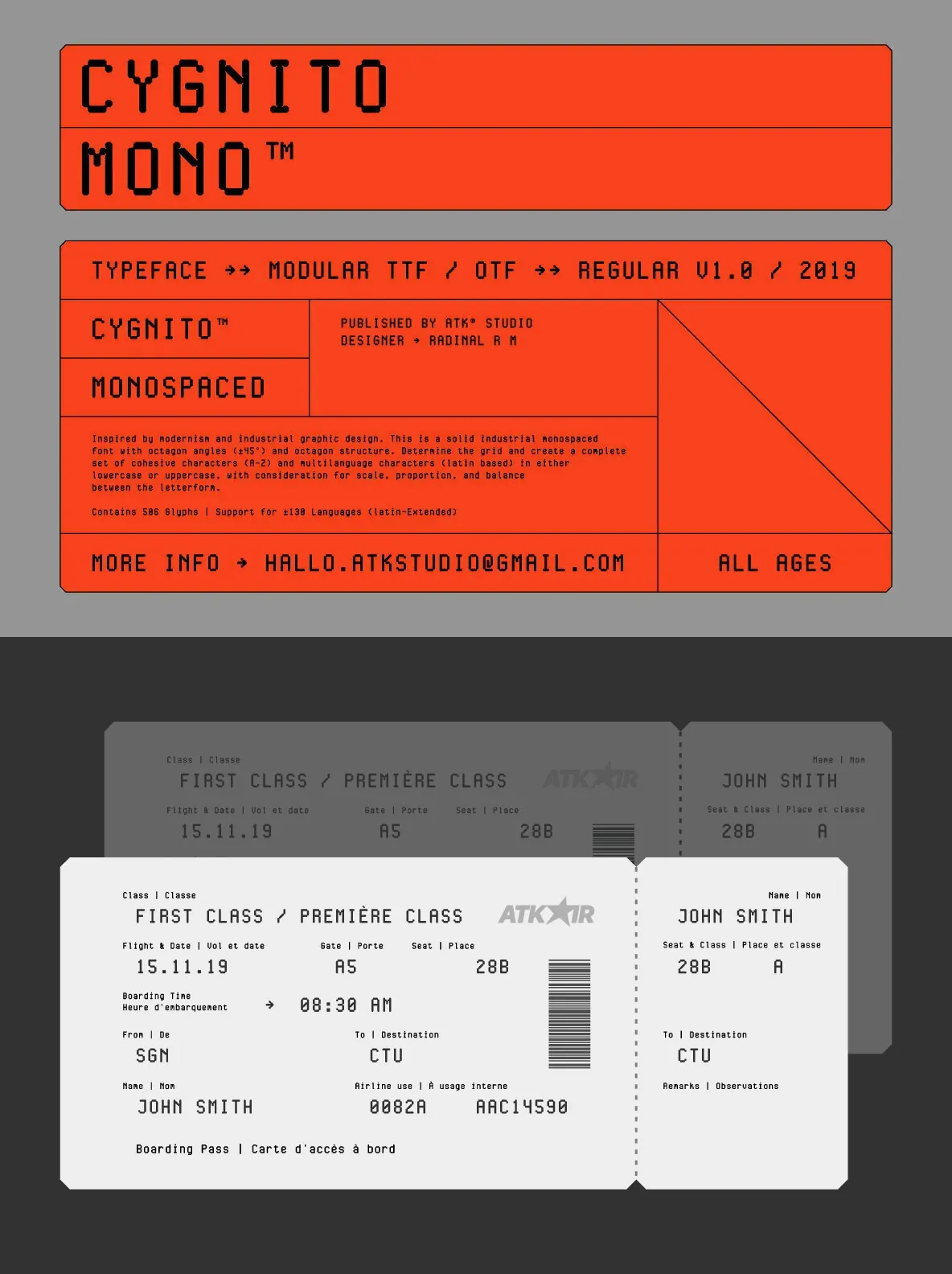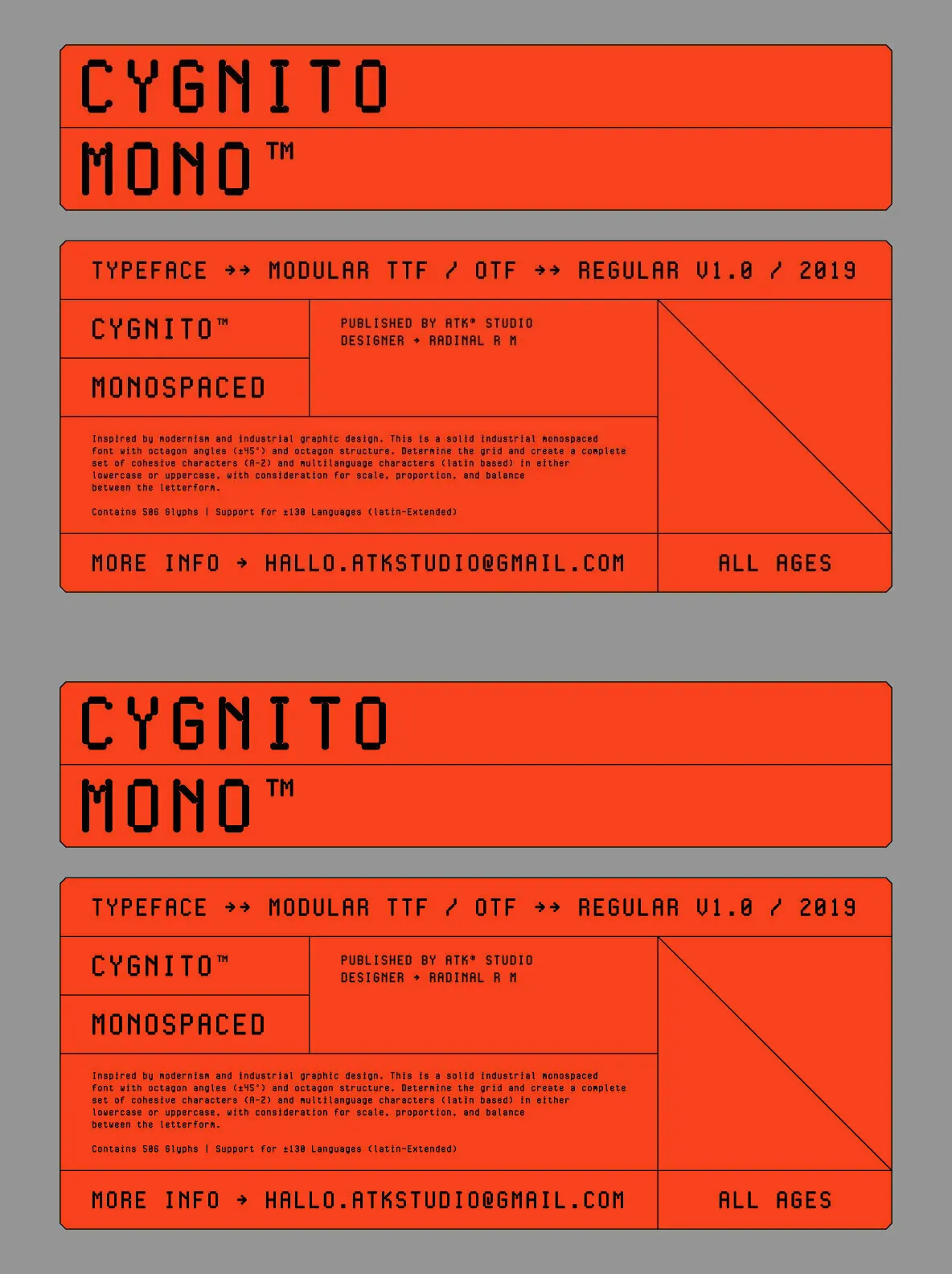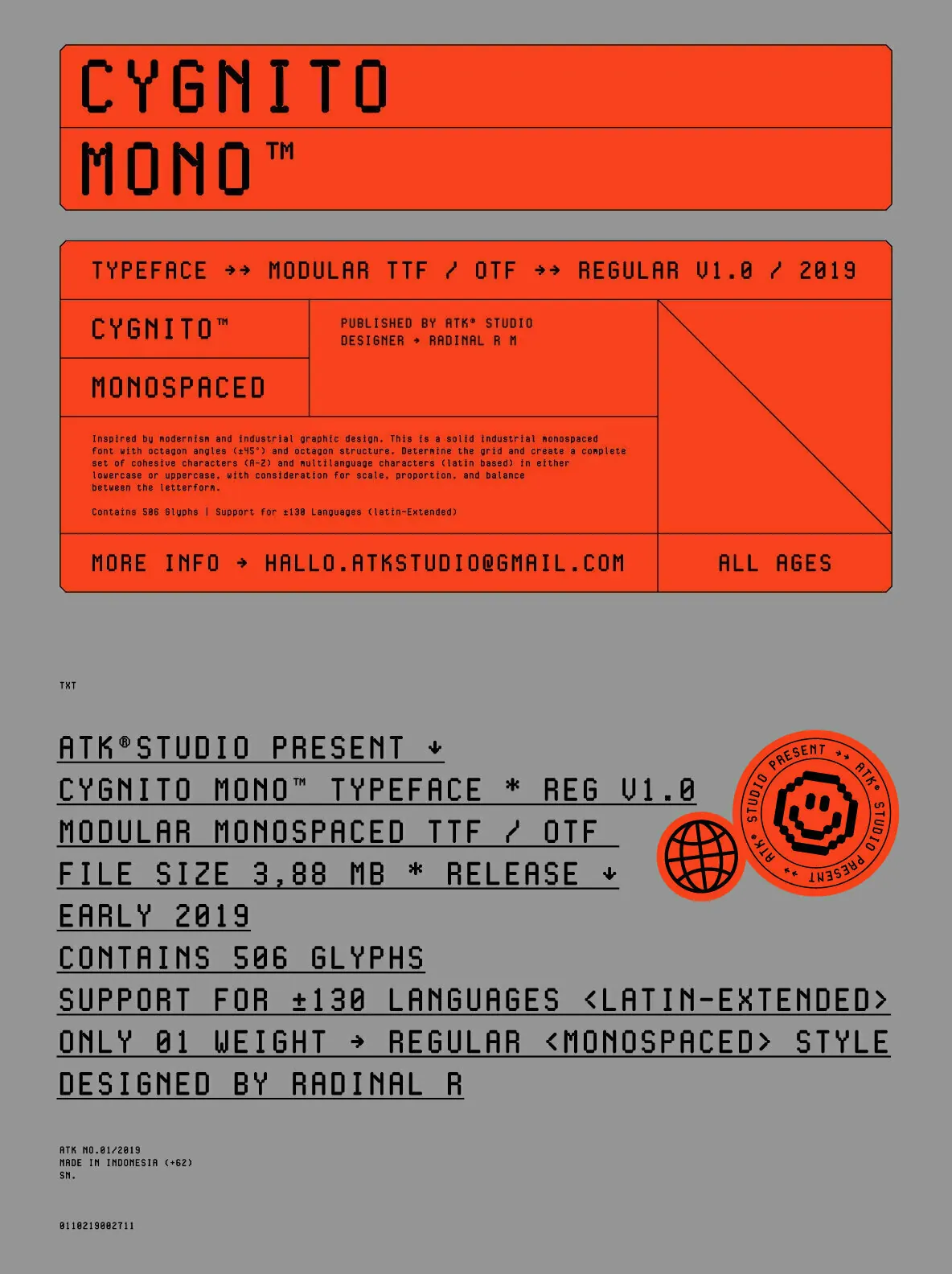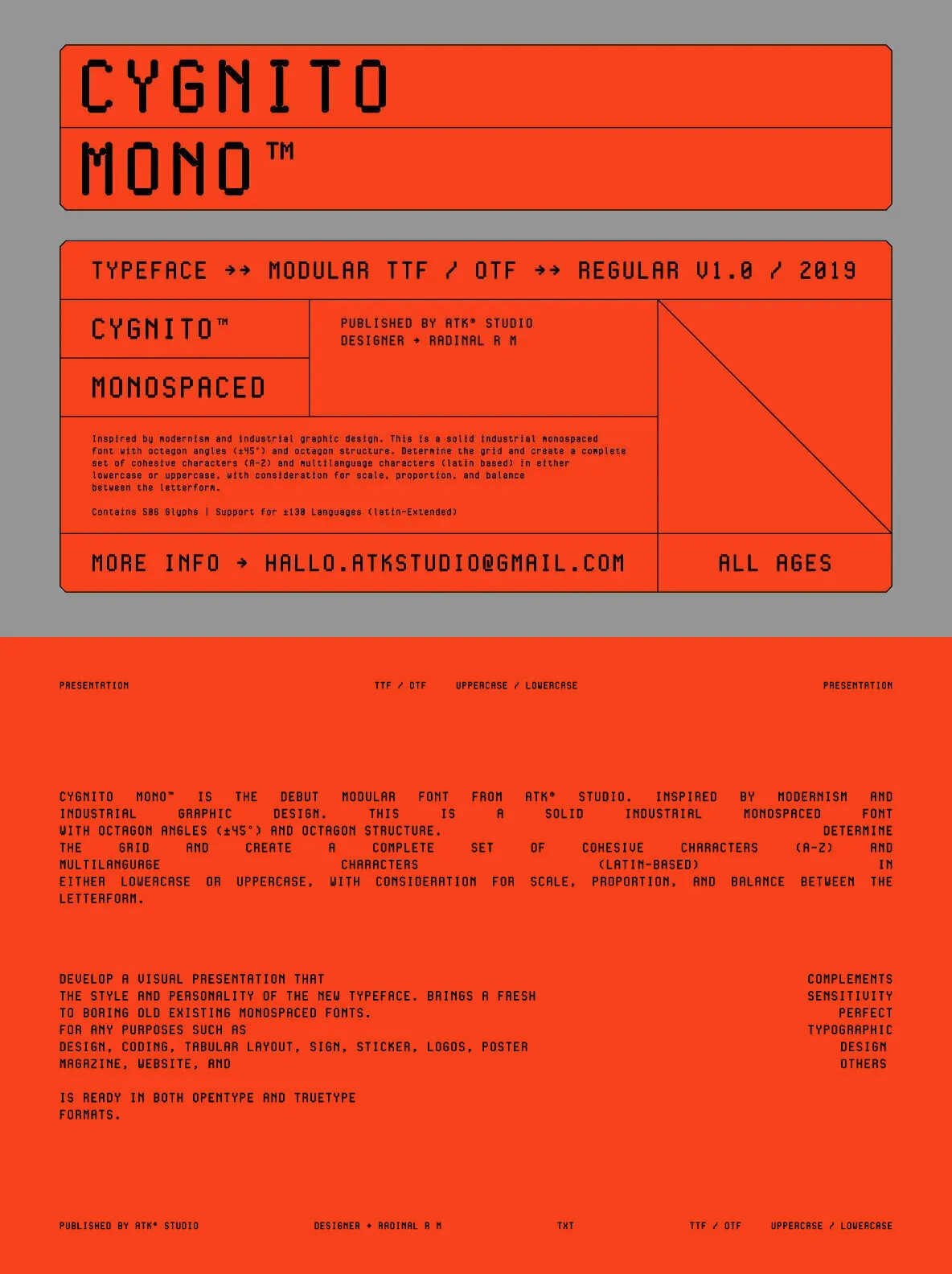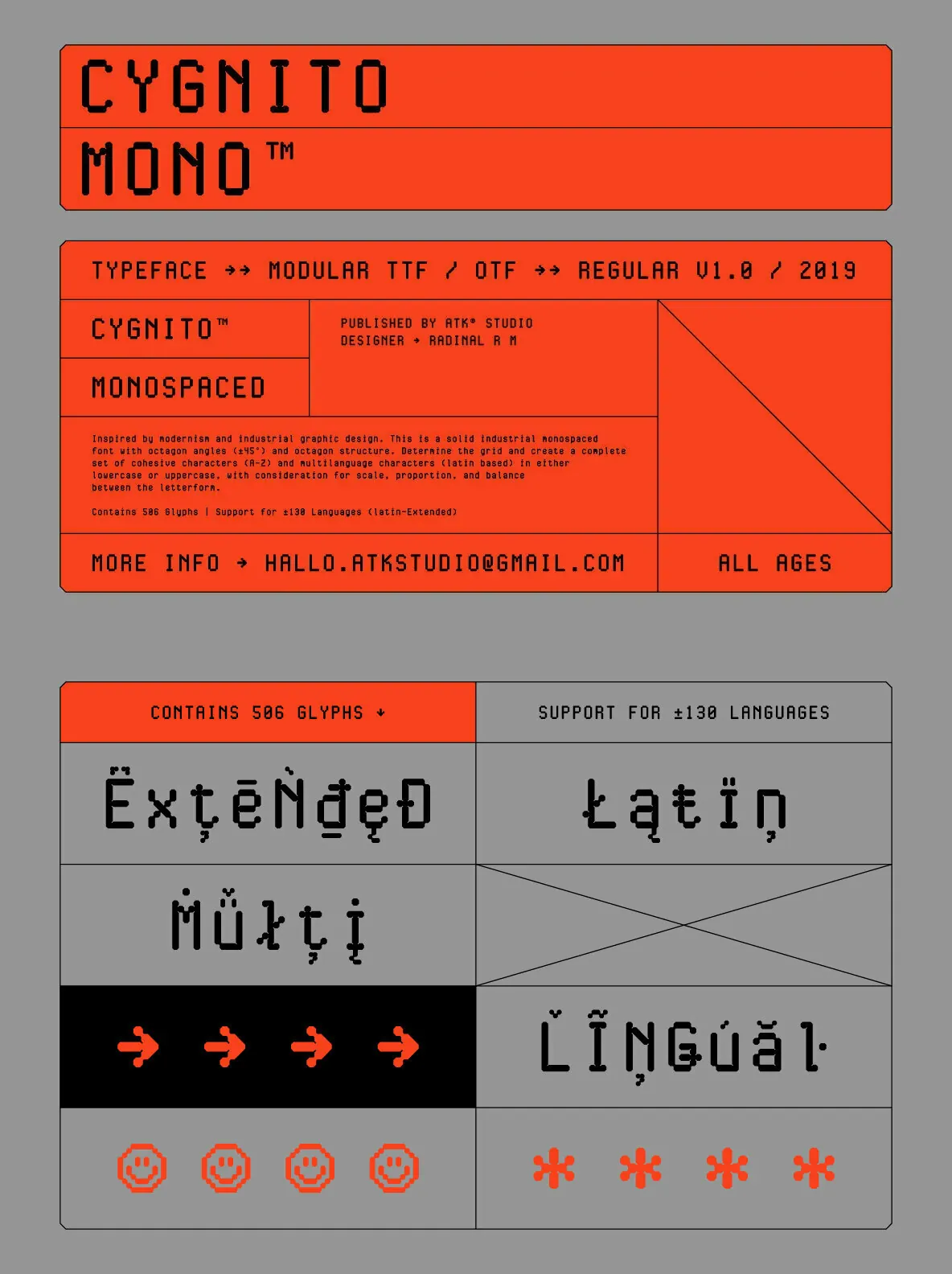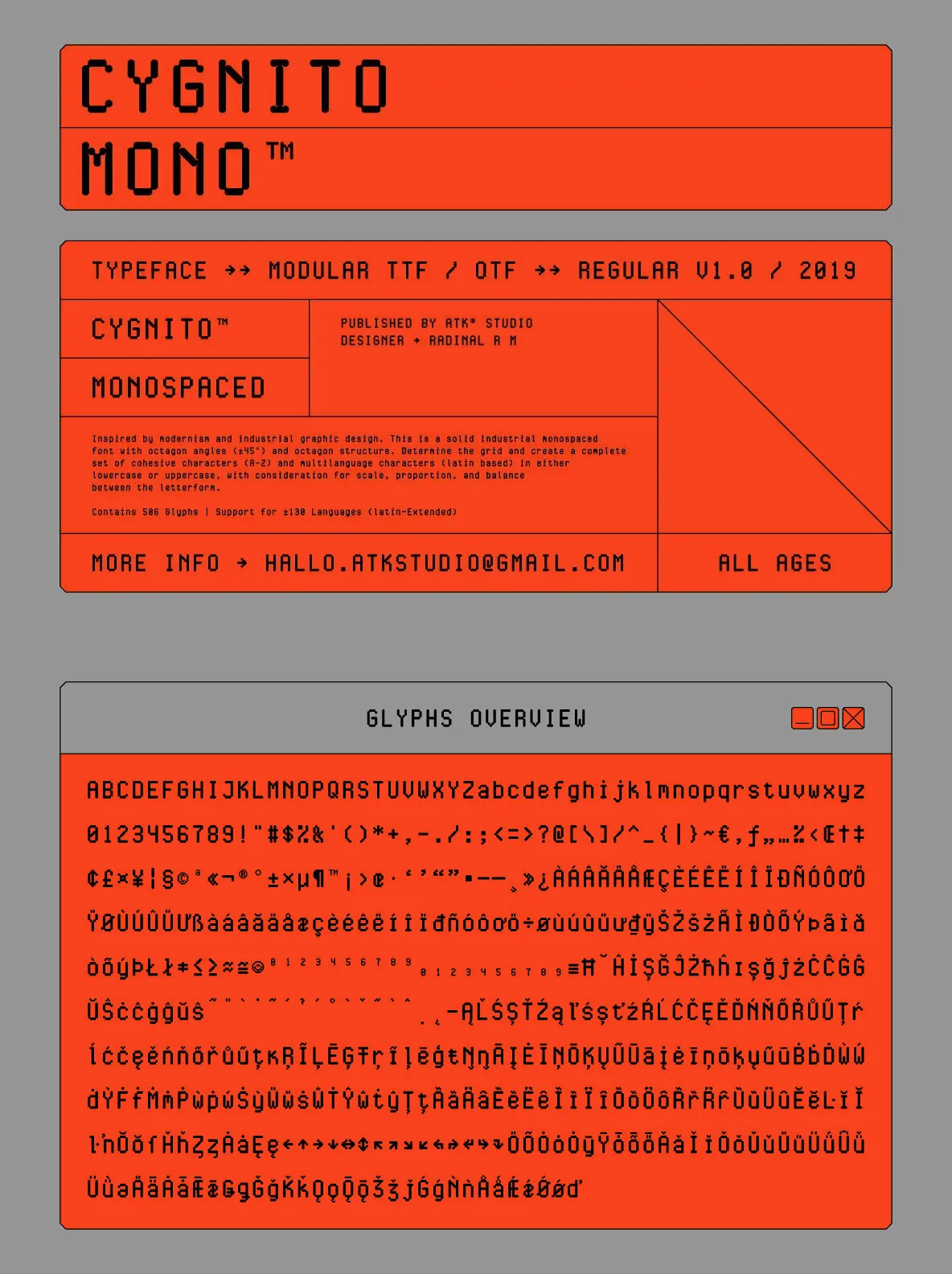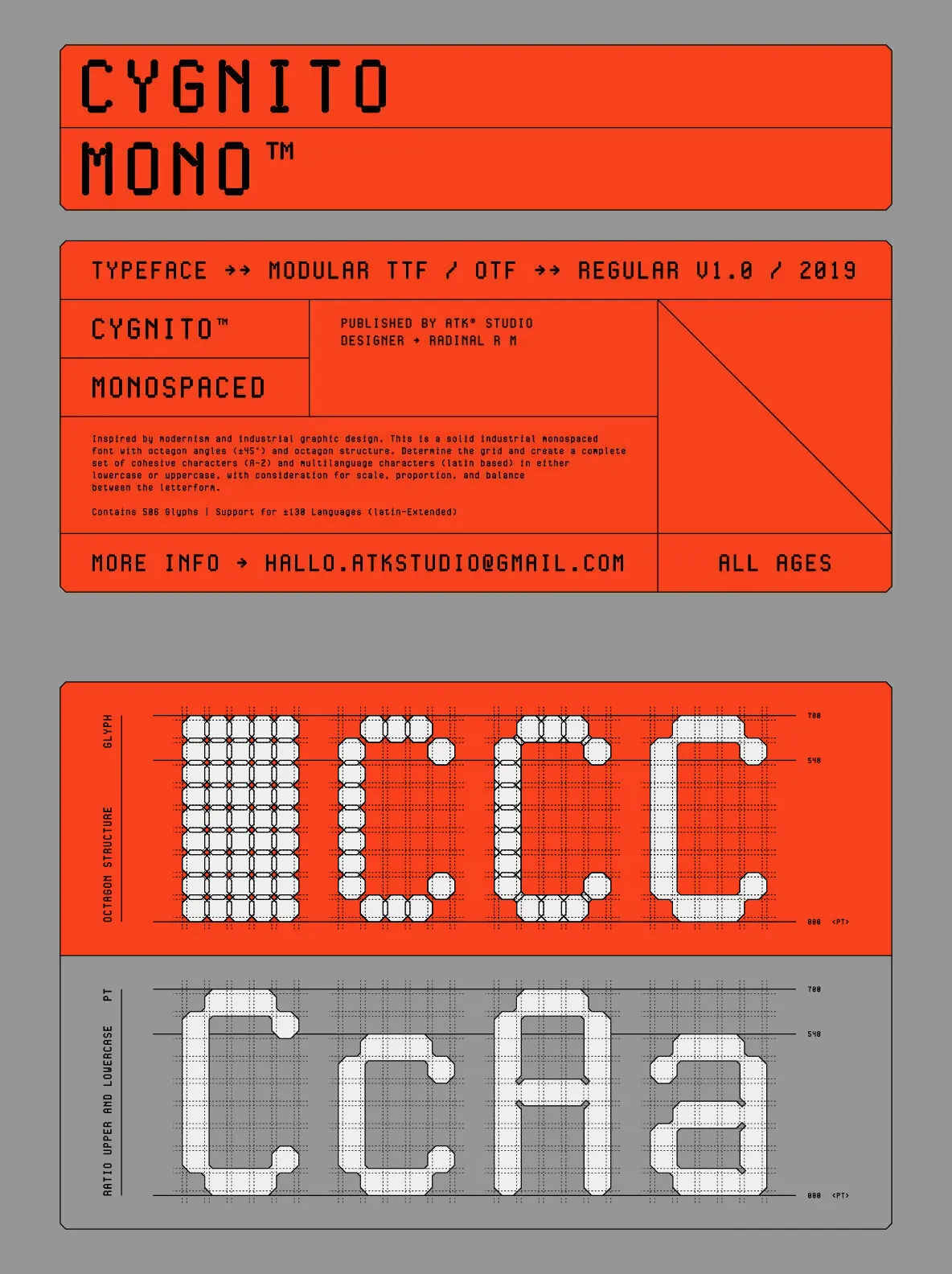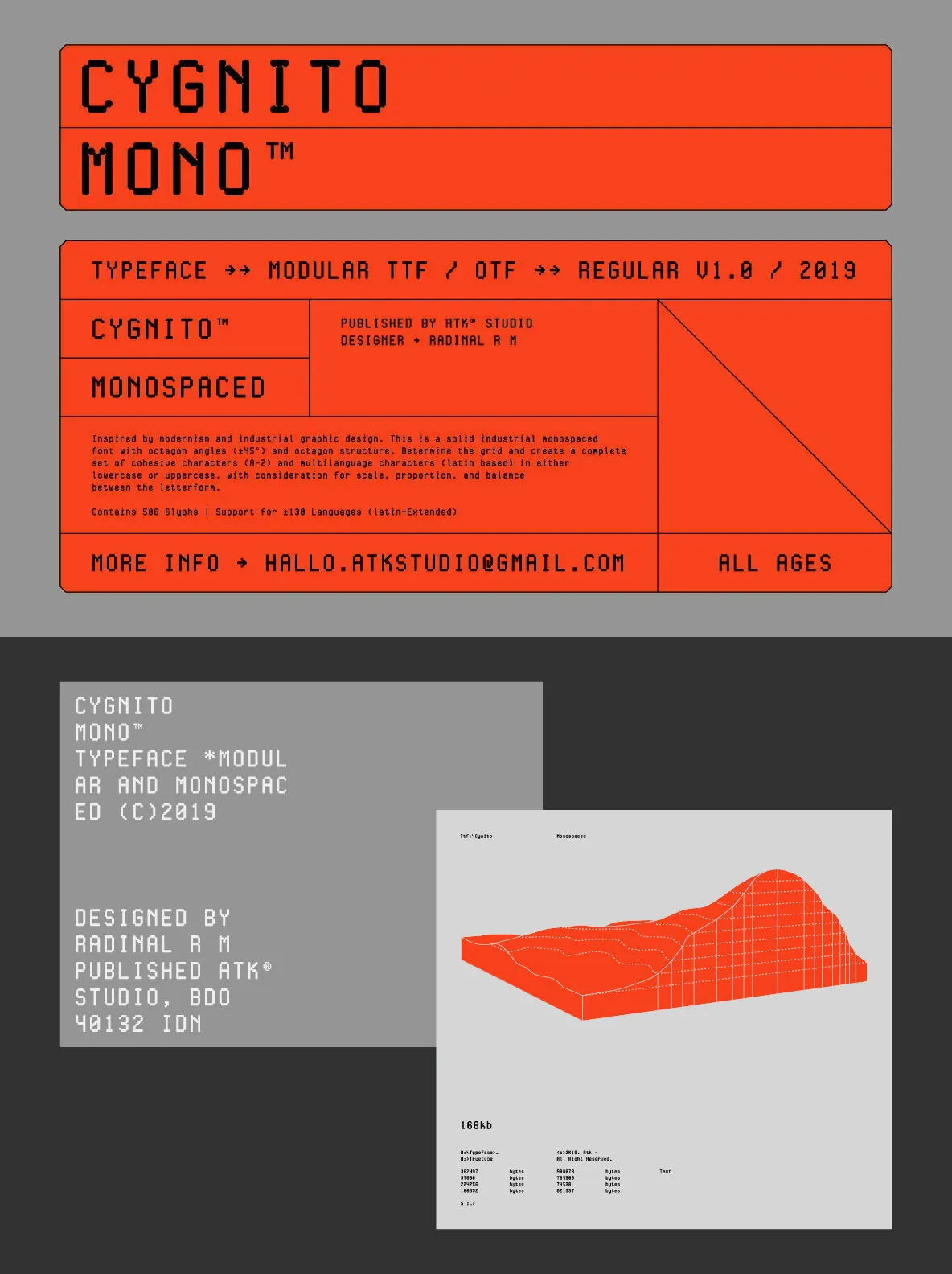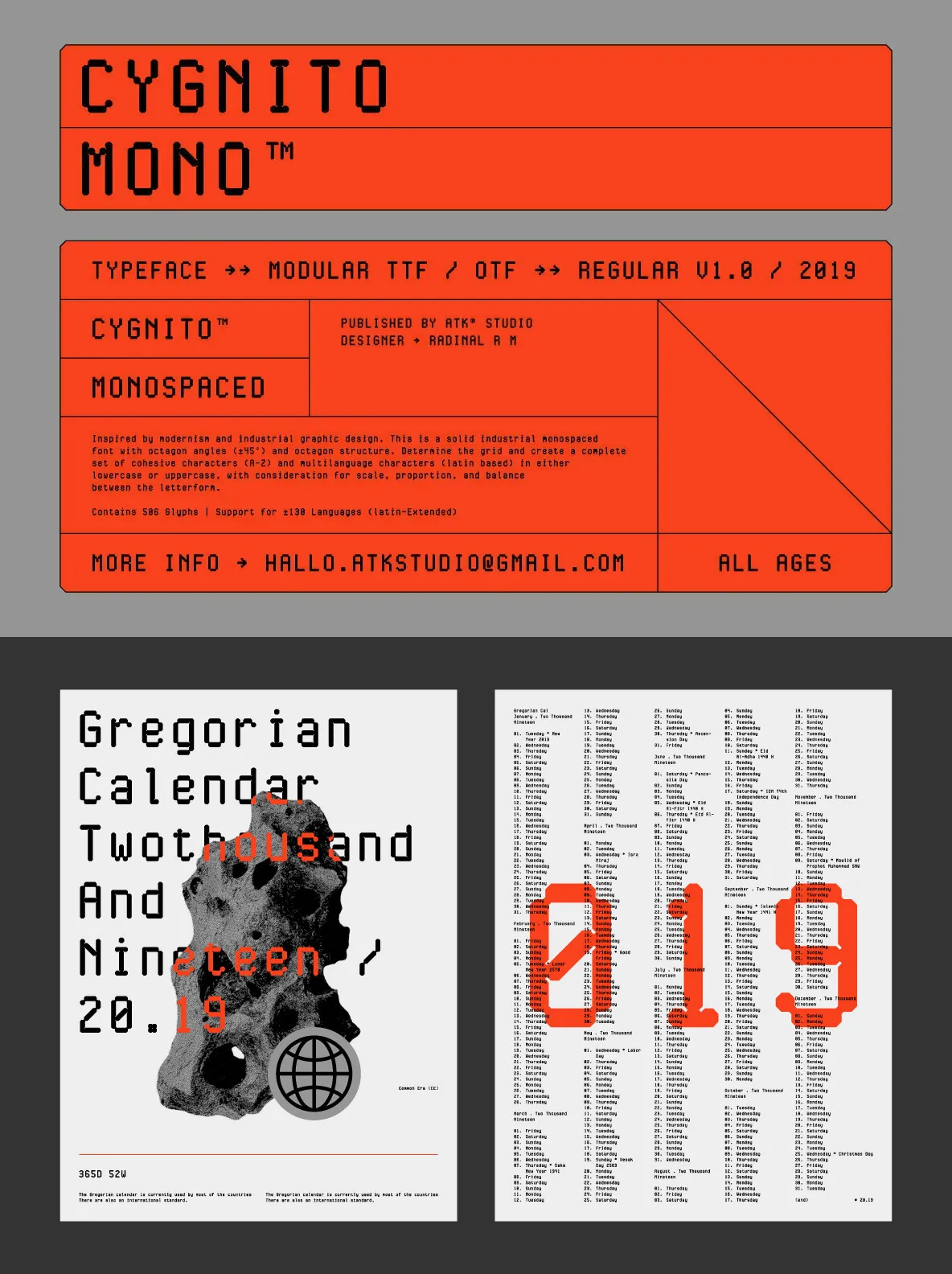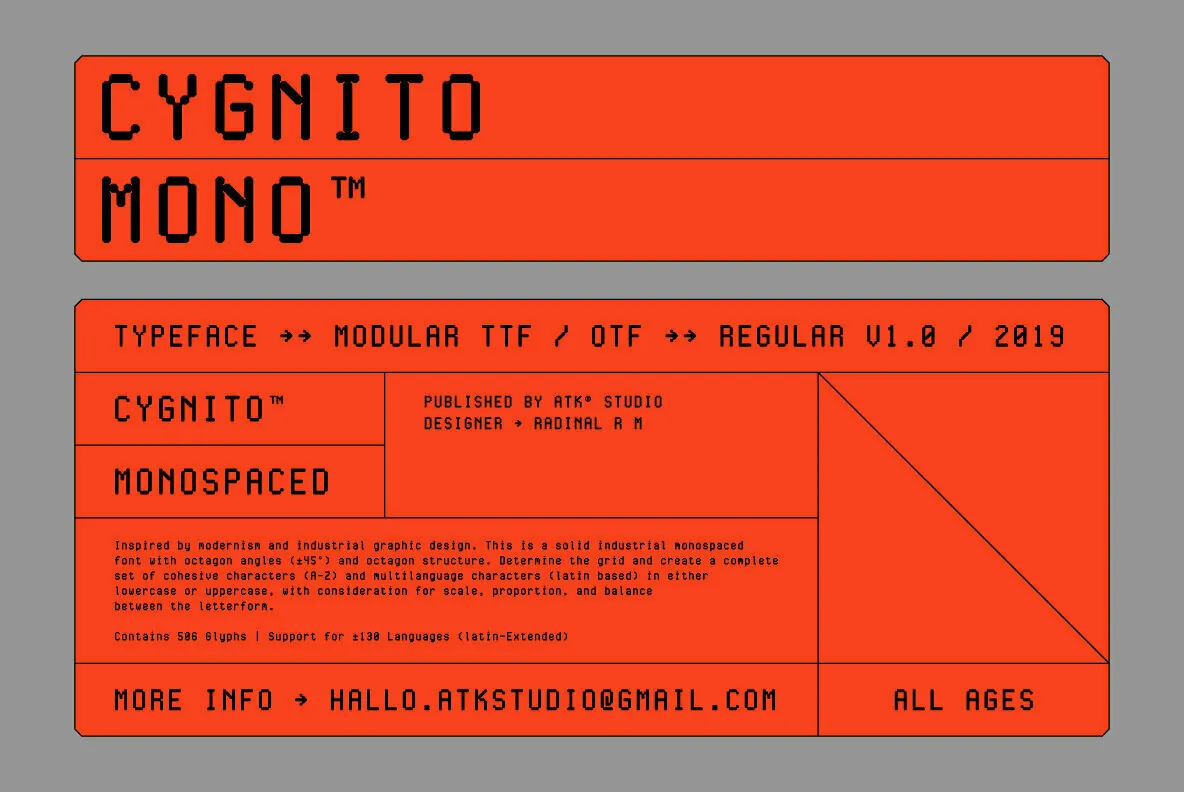
Cygnito Mono — Industrial Angles, Clear Rhythm
Cygnito Mono is the debut font from ATK® Studio. Inspired by modernism and industrial graphic design, it reads as a solid industrial monospaced font defined by octagon angles (±45°) and an octagon structure. The design approach focuses on the grid first—then on building a complete set of cohesive characters (A–Z) and multi-language characters (Latin based) in either lowercase or uppercase, with careful attention to scale, proportion, and balance across the letterforms.
Cygnito Mono contains 506 glyphs and support for ±130 languages. Developed with a visual presentation that complements the style and personality of the typeface, it brings a fresh sensitivity to familiar monospaced conventions. Use it for typographic design, coding, tabular layout, sign, sticker, logos, poster design, magazine, website, and others. It is ready in both OpenType and TrueType formats.